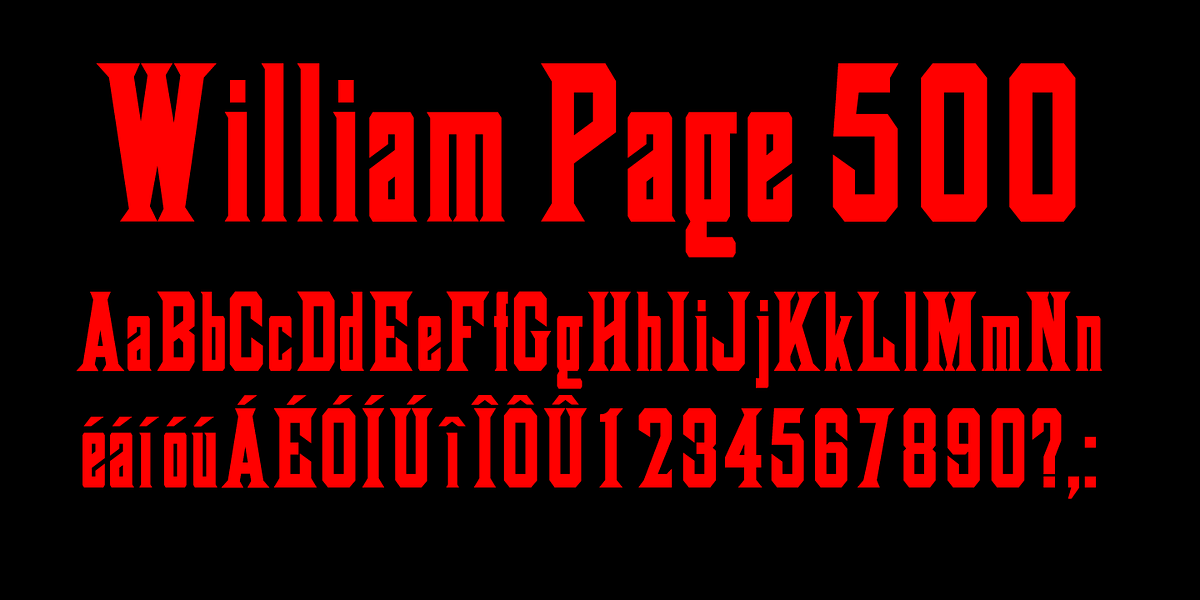
William Page 500
William Page 500 is a revival of a popular wood type font from the 19th century. It features a condensed and square shape, characteristic of geometric display fonts. This vintage-inspired font would be suitable for posters and other display applications.